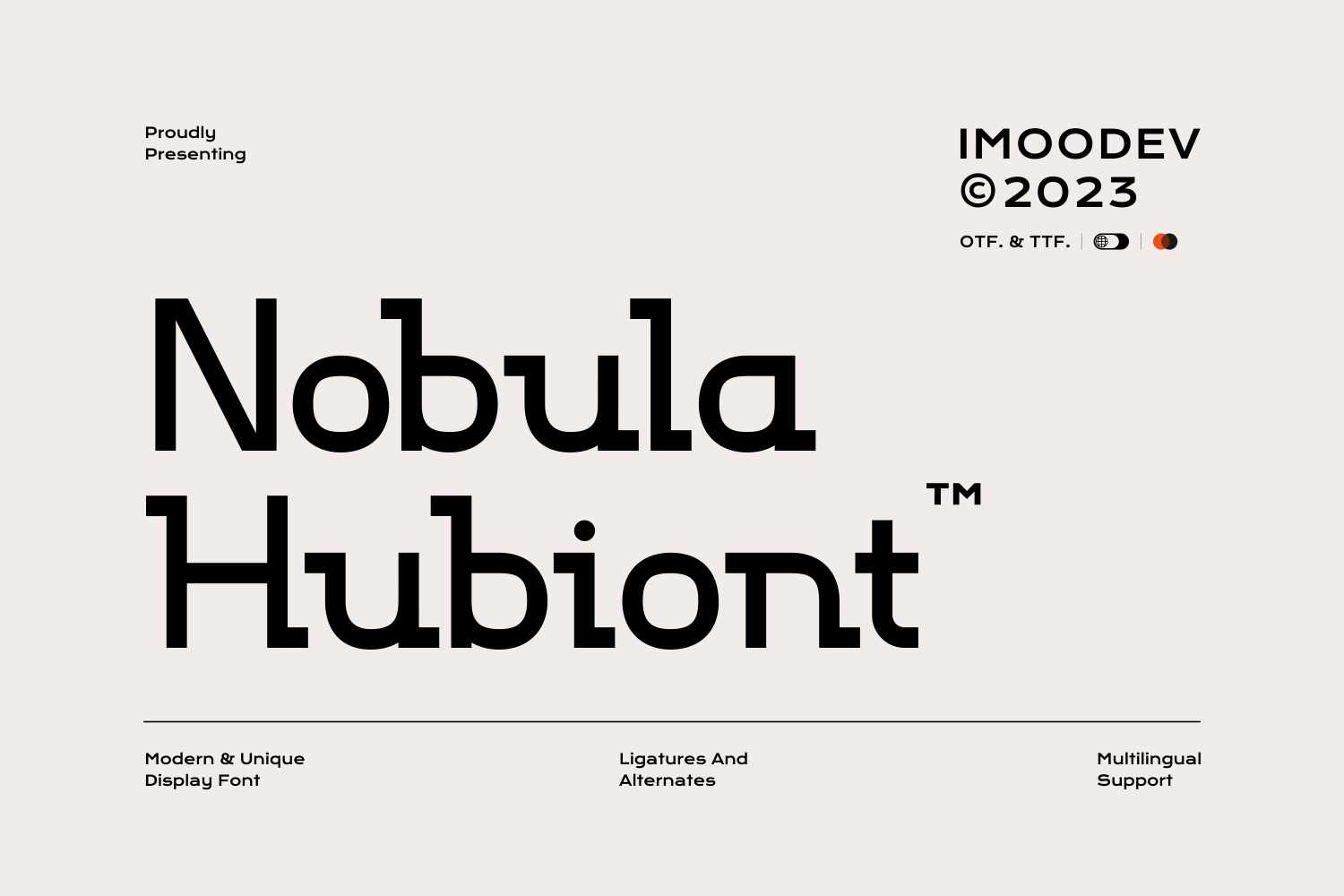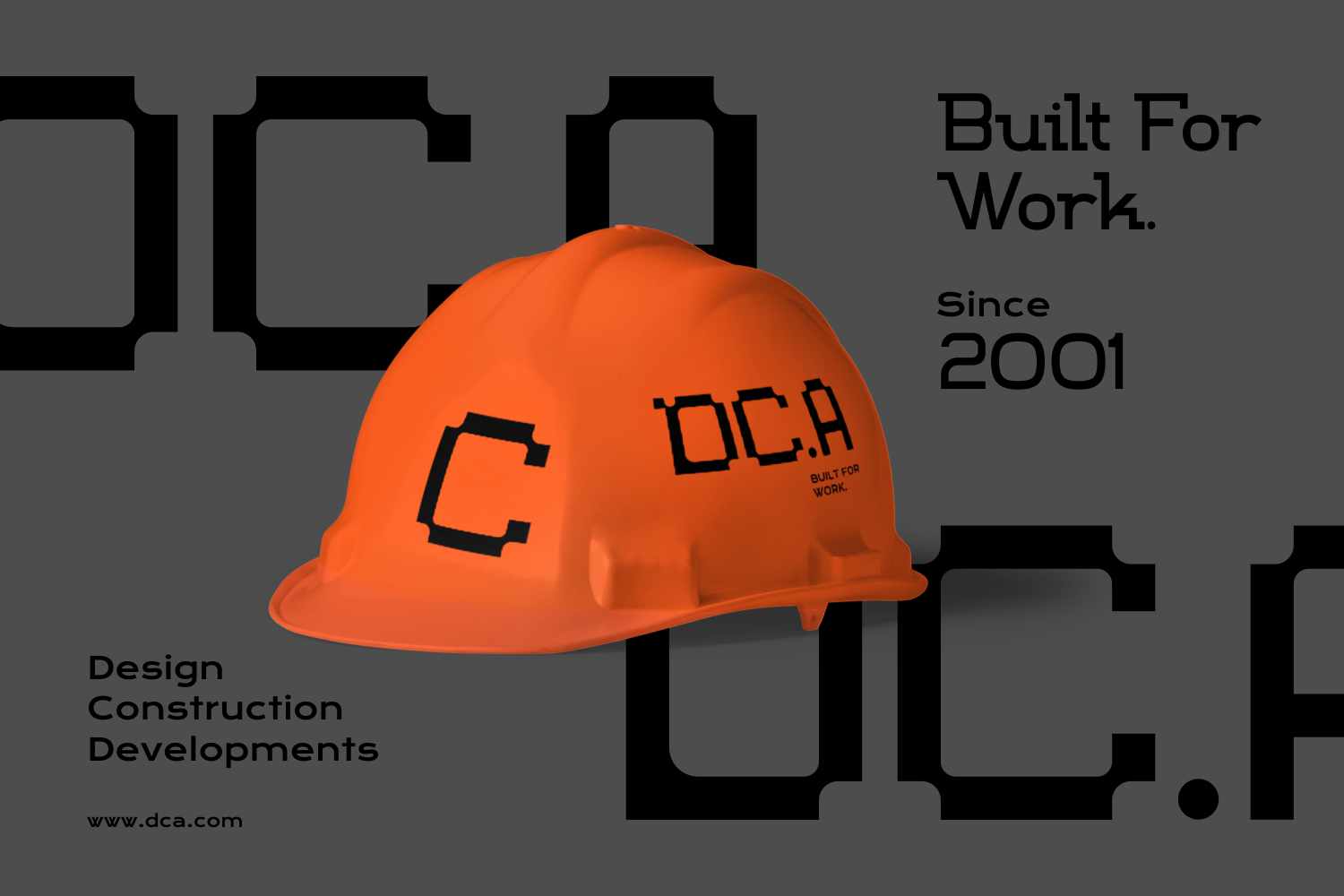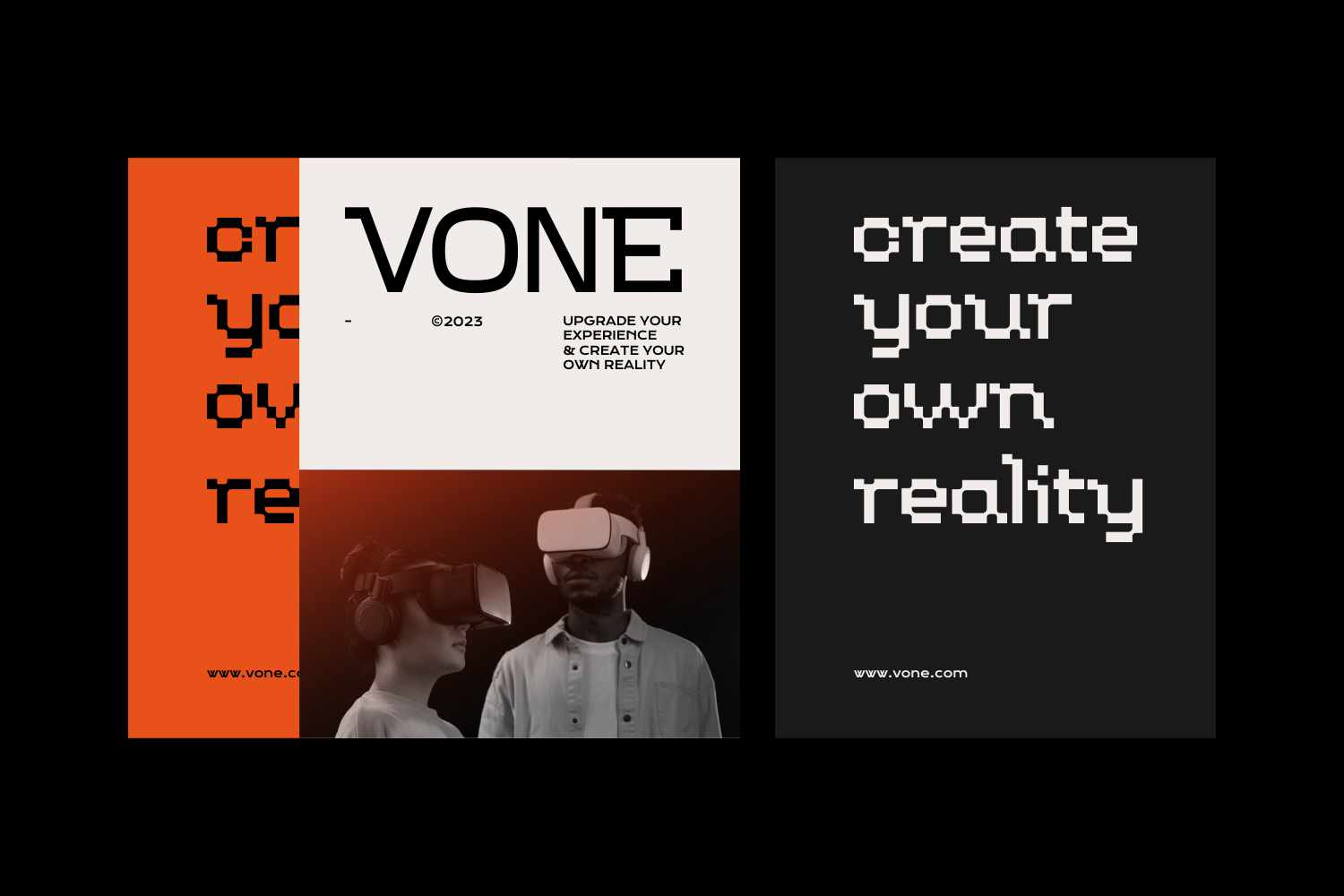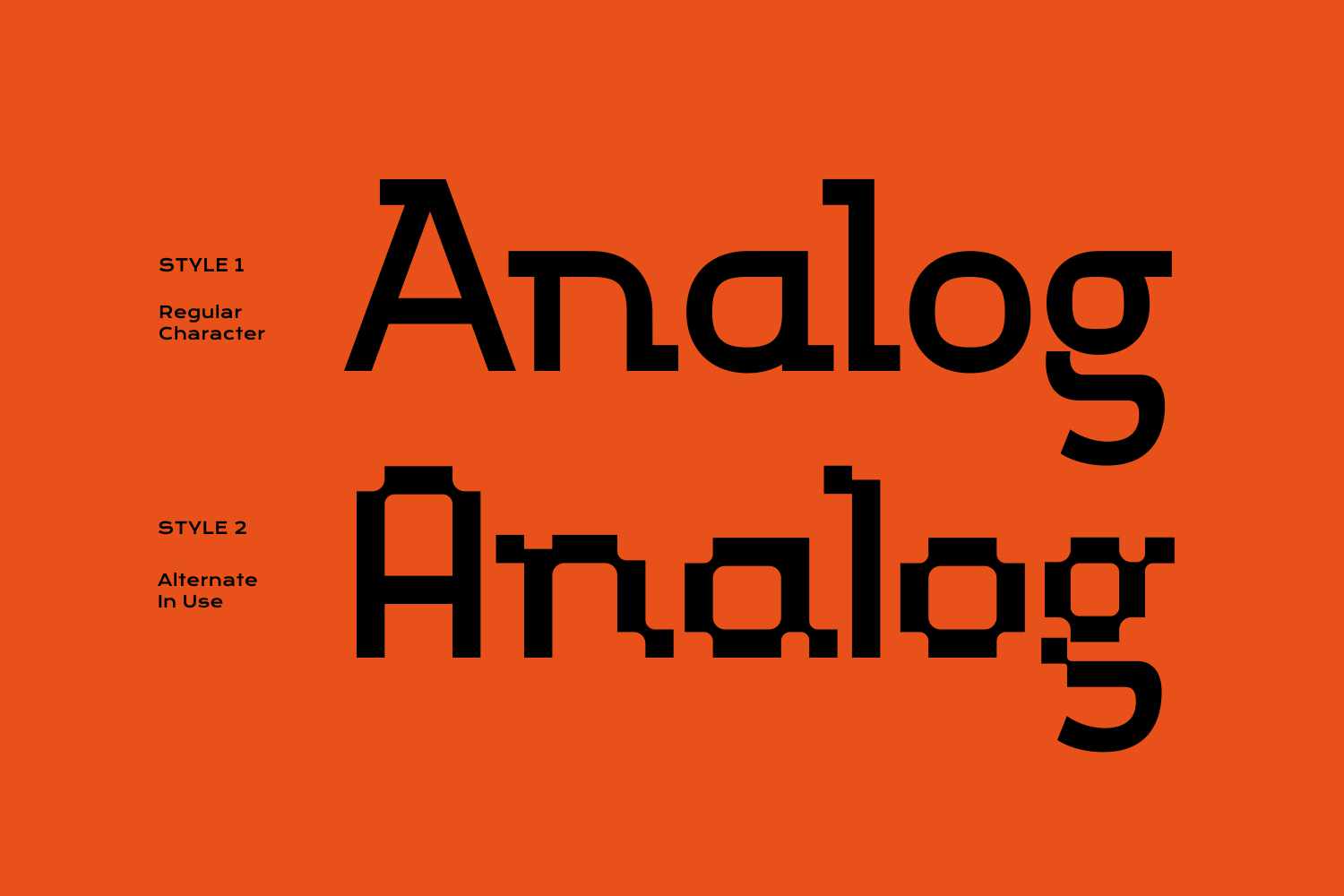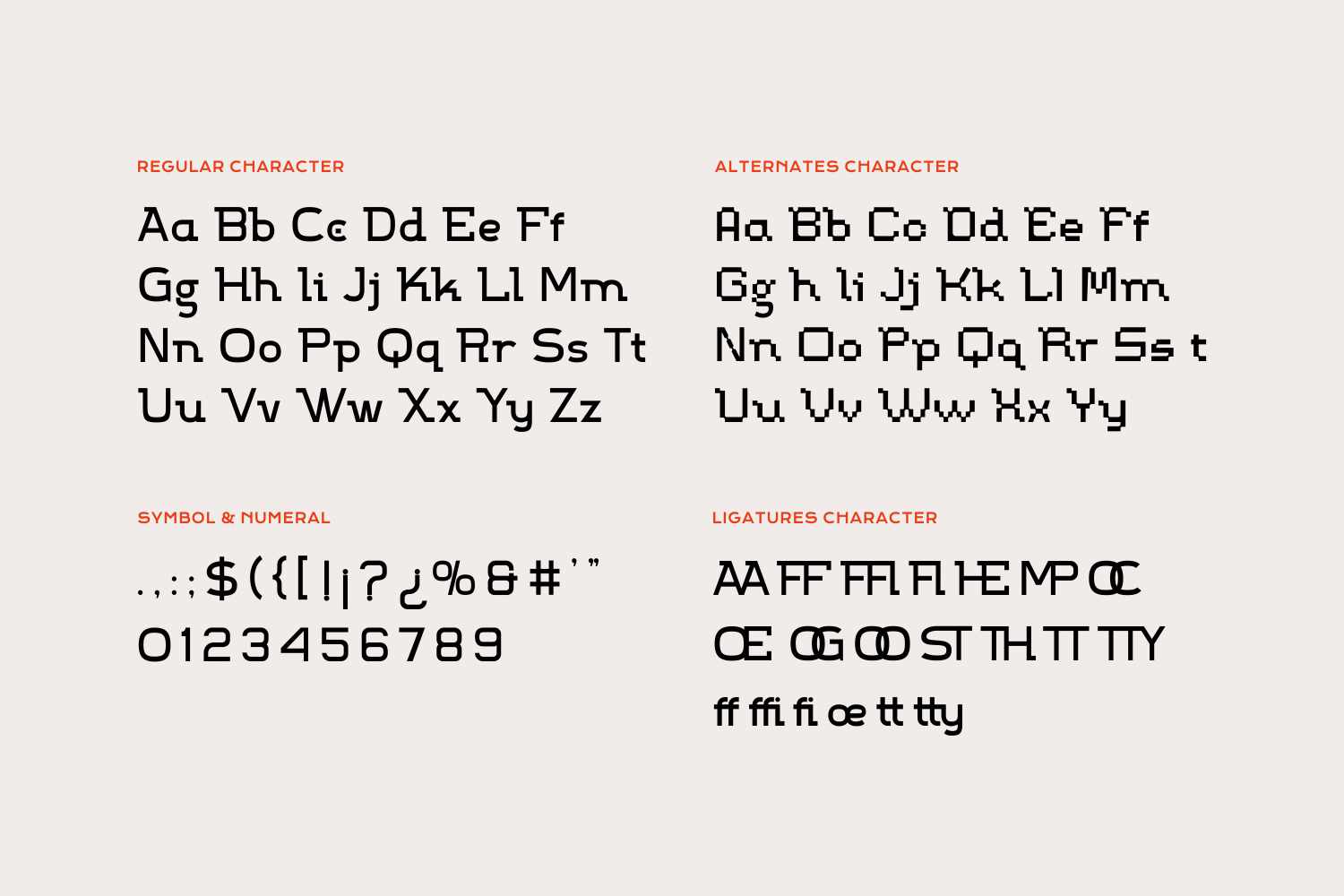
Nobula Hubiont is a modern and unique display font that blends sleek geometric shapes with creative alternates and ligatures. Its clean yet distinctive letterforms make it perfect for branding, editorial designs, and product packaging that demand a contemporary, standout look. With multilingual support and two versatile styles, regular and pixel-inspired alternates—this font offers flexibility for a wide range of design projects.
Whether used for logos, posters, or tech-inspired layouts, Nobula Hubiont brings a bold and innovative touch to your typography. The combination of sharp precision and experimental curves creates a futuristic yet approachable vibe, making it ideal for industries like technology, fashion, architecture, and creative media. This font is designed to elevate your visuals with a fresh, forward-thinking aesthetic.